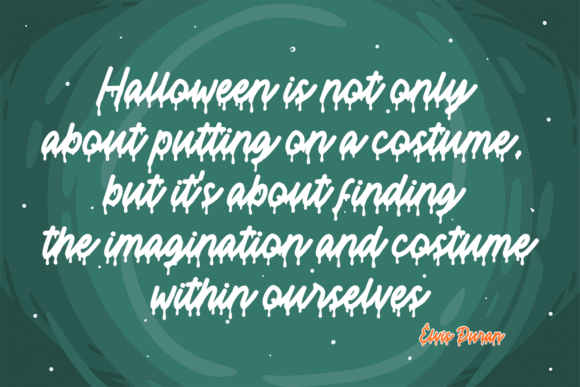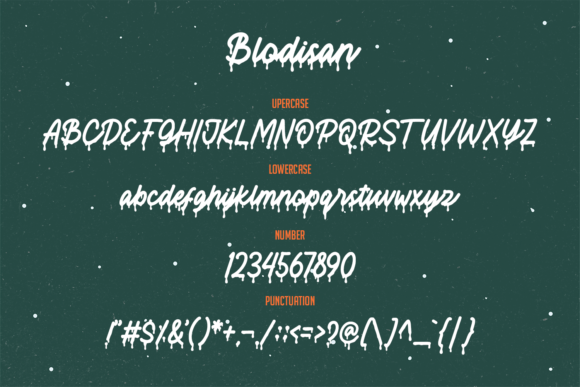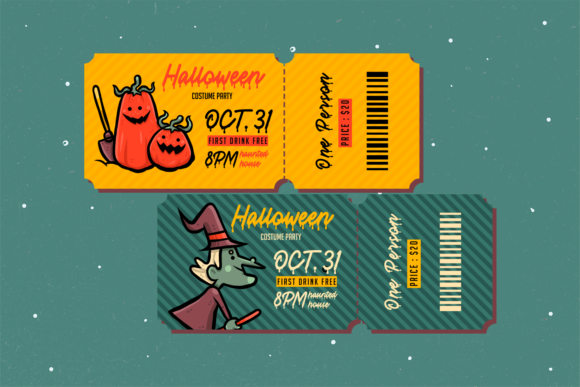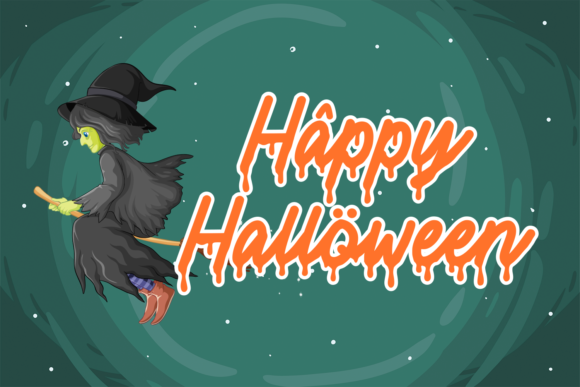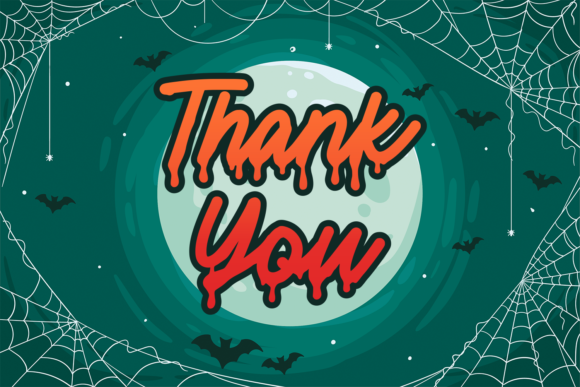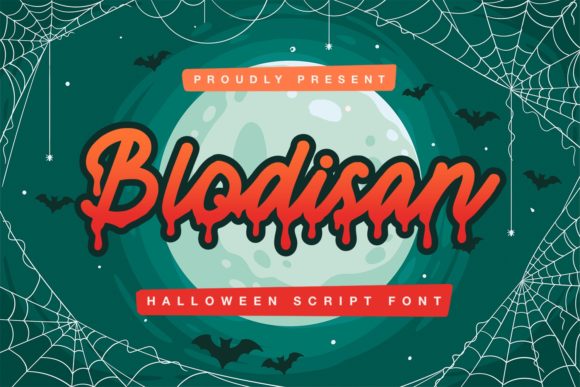
Unleash the Spooky Charm with Blodisan Font: A Perfect Addition to Your Halloween-themed Creations
Are you looking for a font that adds a touch of spookiness and playfulness to your Halloween-themed designs? Look no further than Blodisan Font! This simple, neat lettered, and spooky handwritten font is perfect for designers and crafters who want to create eye-catching and unique content. In this article, we’ll explore the features and benefits of Blodisan Font and how it can elevate your creative projects.
What is Blodisan Font?
Blodisan Font is a carefully crafted font that combines simplicity, neatness, and a touch of spookiness. Its handwritten style is perfect for creating Halloween-themed designs that are both eerie and playful. The font’s unique character set makes it ideal for a wide range of creative projects, from stationery art to social media posts.
Key Features of Blodisan Font
- Simple and Neat Lettering: Blodisan Font features simple and neat lettering that is easy to read and understand.
- Spooky Handwritten Style: The font’s spooky handwritten style adds a touch of eeriness to your designs, making them perfect for Halloween-themed projects.
- Playful and Fun: Despite its spooky undertones, Blodisan Font is playful and fun, making it ideal for creating engaging and interactive content.
- Versatile: Blodisan Font can be used for a wide range of creative projects, from stationery art to social media posts, and much more.
Benefits of Using Blodisan Font
So, why should you use Blodisan Font for your creative projects? Here are just a few benefits:
- Adds a Touch of Spookiness: Blodisan Font adds a touch of spookiness to your designs, making them perfect for Halloween-themed projects.
- Increases Engagement: The font’s playful and fun style can help increase engagement and interaction with your audience.
- Easy to Read: Despite its spooky undertones, Blodisan Font is easy to read and understand, making it perfect for creating content that needs to be quickly consumed.
- Unique and Eye-Catching: Blodisan Font is unique and eye-catching, making it perfect for designers and crafters who want to stand out from the crowd.
Creative Ways to Use Blodisan Font
So, how can you use Blodisan Font in your creative projects? Here are a few ideas to get you started:
- Stationery Art: Use Blodisan Font to create beautiful and spooky stationery art, perfect for Halloween-themed cards and invitations.
- Social Media Posts: Add a touch of spookiness to your social media posts with Blodisan Font, perfect for Halloween-themed content.
- Halloween-themed Designs: Use Blodisan Font to create eye-catching and unique Halloween-themed designs, from flyers to posters.
- Crafting Projects: Add a touch of spookiness to your crafting projects, such as scrapbooking and DIY decorations.
In conclusion, Blodisan Font is a simple, neat lettered, and spooky handwritten font that is perfect for designers and crafters who want to create eye-catching and unique Halloween-themed content. Its playful style and versatile character set make it ideal for a wide range of creative projects, from stationery art to social media posts. So, why not give Blodisan Font a try and see how it can elevate your creative projects?